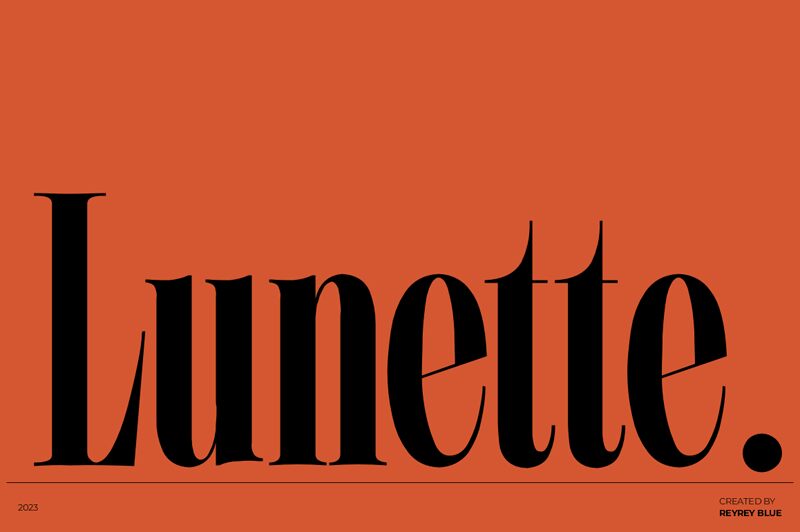
Lunette font family designed by ReyreyBlue includes 4 font styles presenting it as a free serif font family for personal use. Lunette feels a bit dramatic with elegant vintage-inspired visuals that make an impact no matter the size. This dominant, sophisticated typeface emanates a classic authoritative feel.
If you are looking to add authority and value to your graphic design projects, Lunette will not fail you. Use it to build brand identities, visual identities, packaging designs, magazine covers, front pages, posters, and artwork. This free font family can also be used for logo designs, creative poster headers, and many more.